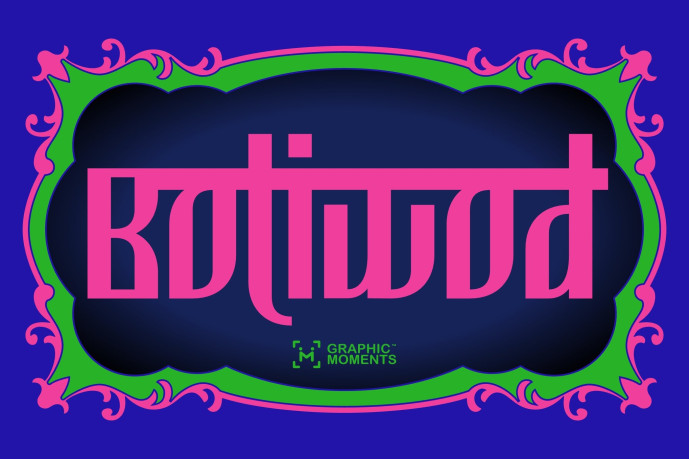
Boliwod – Hindi Font
Designer: Graphic_Moments
Boliwod – Hindi Font is a captivating Hindi-style display font inspired by the dynamic lettering of Indian cinema posters. Designed with a strong Devanagari and Devnagri influence, it blends the artistic essence of Hindi, Marathi, Gujarati, Malayalam, and Telugu scripts into a vibrant visual form. This font celebrates the colorful energy of Bollywood and the cultural heartbeat of India through expressive curves and geometric strokes. Perfect for festive branding, packaging, or film titles, Boliwod brings authenticity and flair to any creative project rooted in Indian design.
Evoking the joy and celebration of Diwali, Deepavali, and other Hindu festivals, Boliwod radiates the warmth and spirituality of Indian traditions. Its structure captures the sacred beauty of Sanskrit-inspired forms while offering a modern, eye-catching appeal suitable for contemporary design. Whether used for Bollywood-inspired logos, Indian wedding invitations, or festive posters, Boliwod is a typographic journey through India’s cultural soul—vibrant, artistic, and full of life.